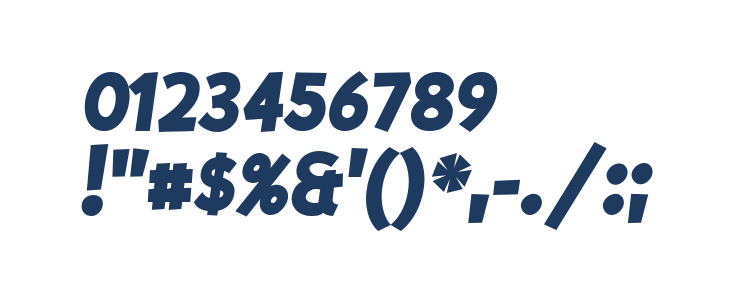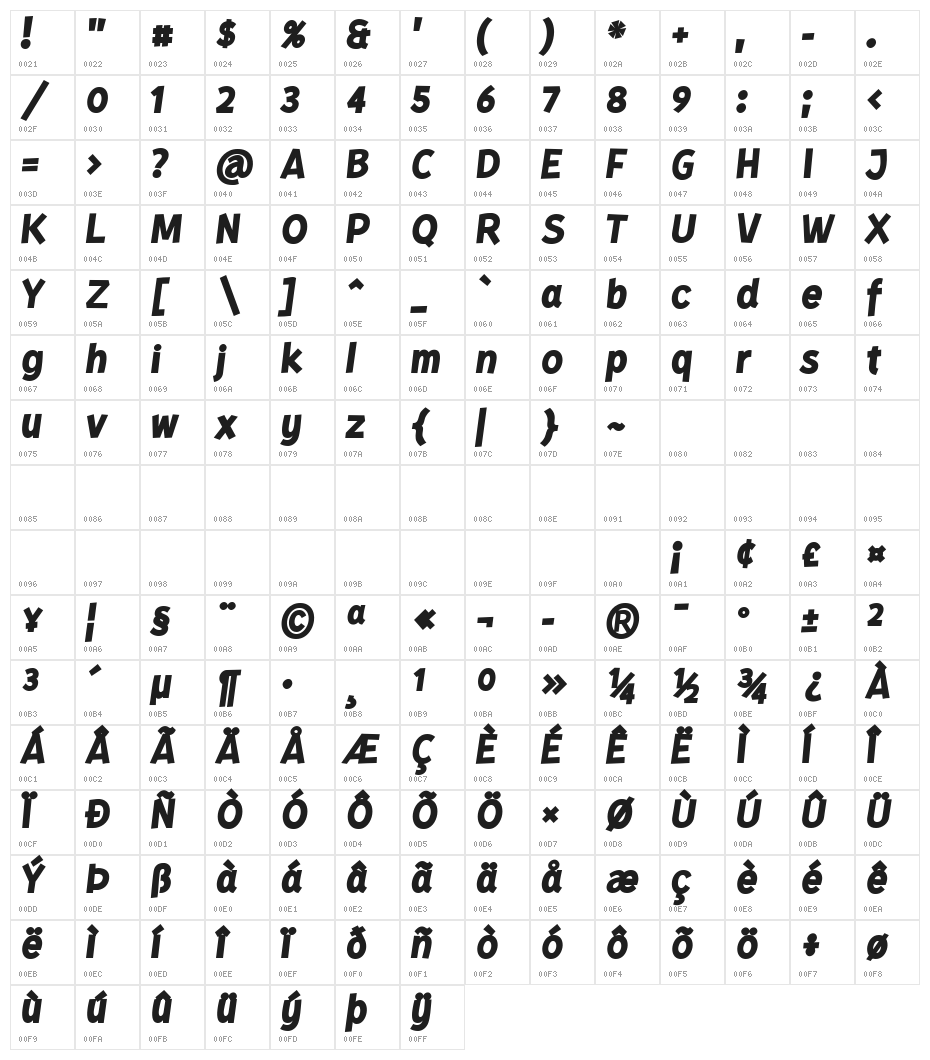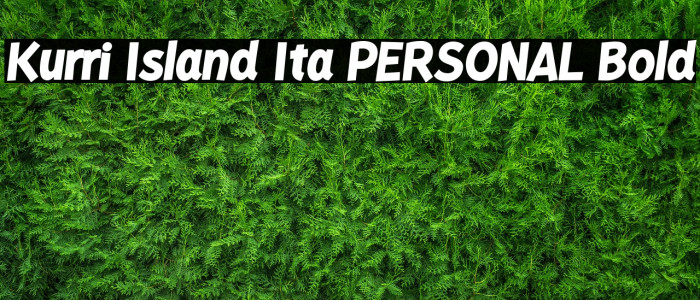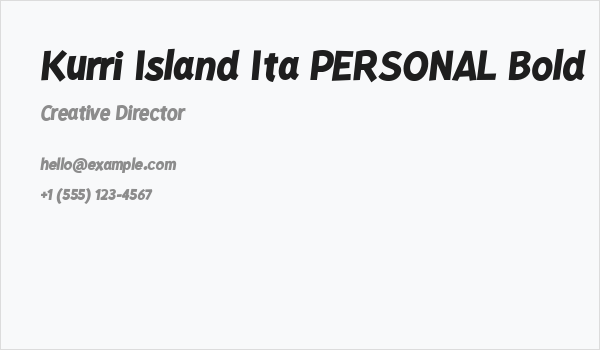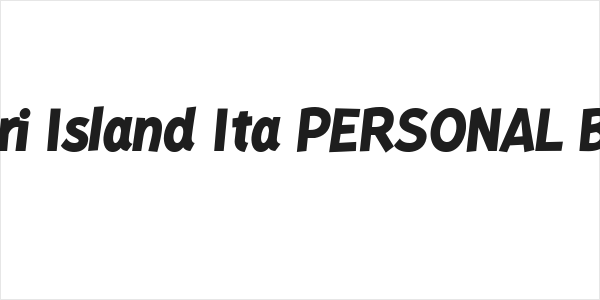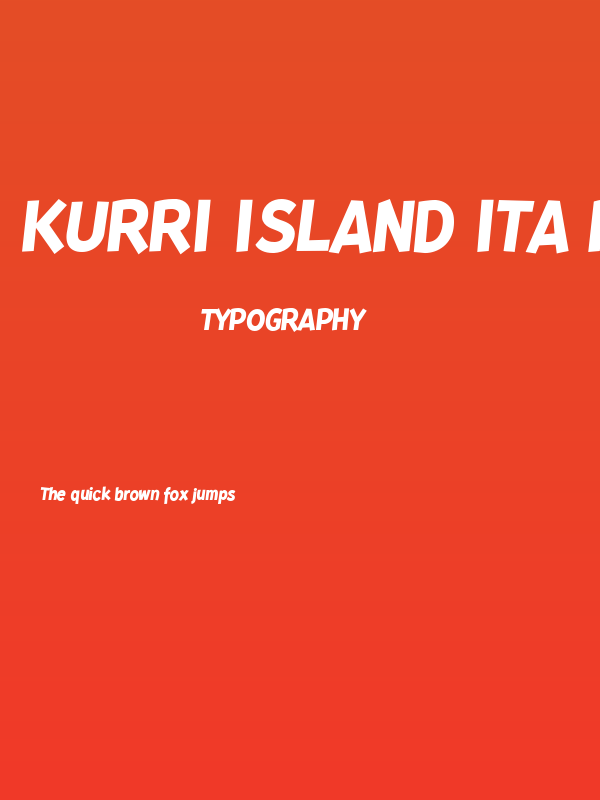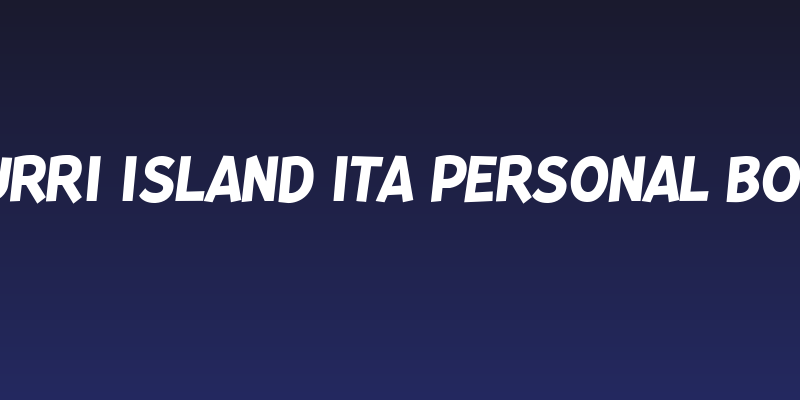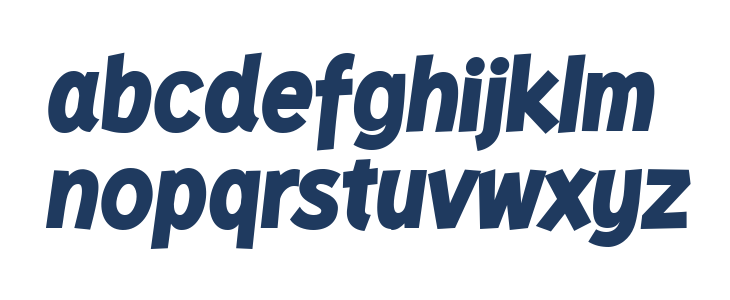
Kurri Island Ita PERSONAL Bold Font
This font features a bold and dynamic style with a slight italic slant, giving it a sense of movement and energy. The characters are thick and robust, providing a strong visual impact. The uppercase and lowercase letters maintain a consistent weight, ensuring readability and uniformity across different text sizes. The numerals are equally bold, matching the letters in style and weight. Special characters are designed with the same boldness, making them stand out effectively. The overall design is modern and eye-catching, suitable for projects that require a strong and confident typographic presence.
Proposed ProjectsIdeal for branding, advertising, posters, and headlines that need a strong visual impact.